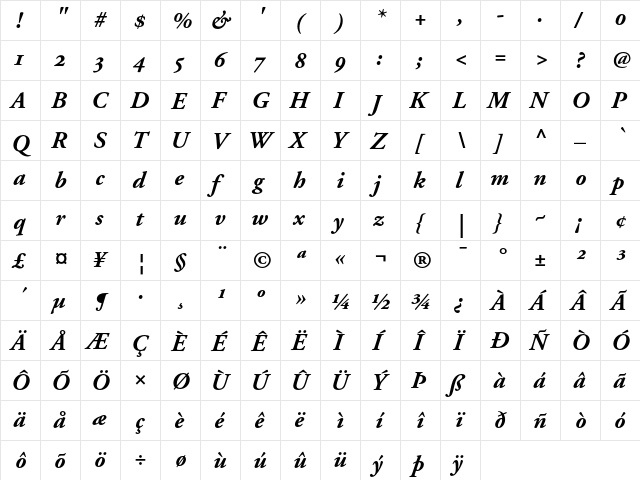
Adobe Garamond Bold Italic Oldstyle Figures Font Preview
Design Context for Adobe Garamond Typeface
Adobe Garamond brings classic typographic sensibility to the table — its serifs and measured letterforms reflect centuries of print heritage. The dynamic lean of this cut emphasises speed and emphasis in any layout. Its bold stroke weight gives it real presence on the page.
Pro Tip: Use Adobe Garamond for editorial body copy and considered headline work. Pair with a neutral sans for UI elements or captions to create a classic hierarchy.